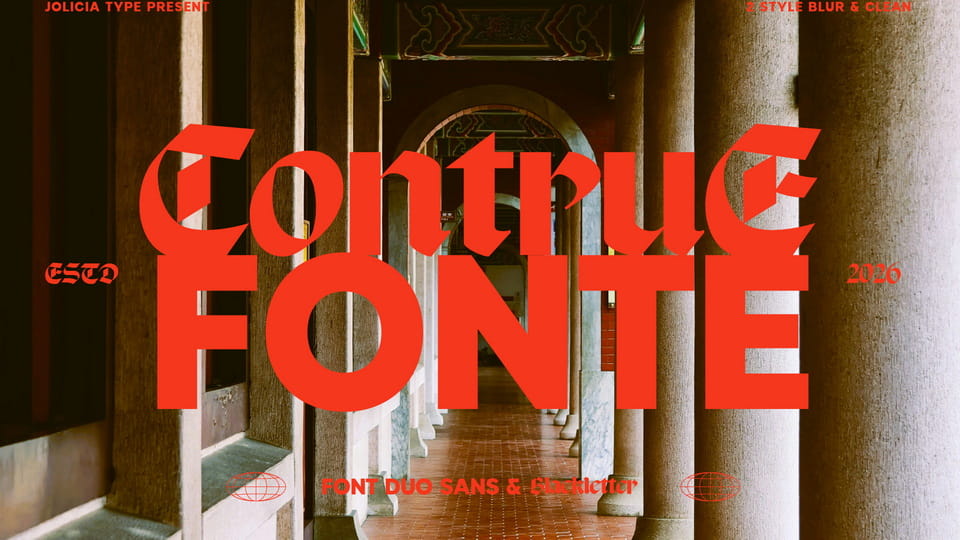
Download Contrue Fonte, a bold font duo that bridges modern minimalism and medieval drama. It combines a clean contemporary sans serif with an expressive blackletter style